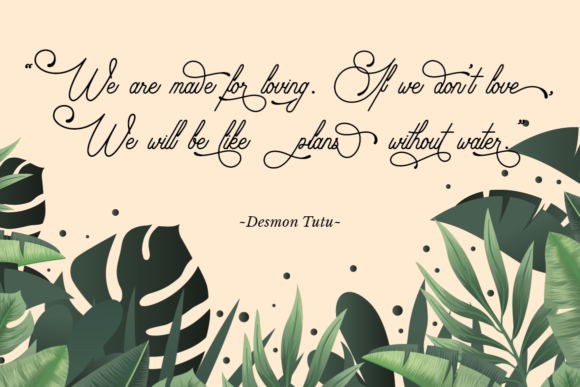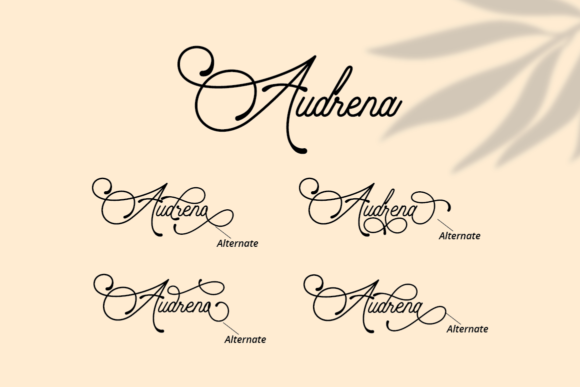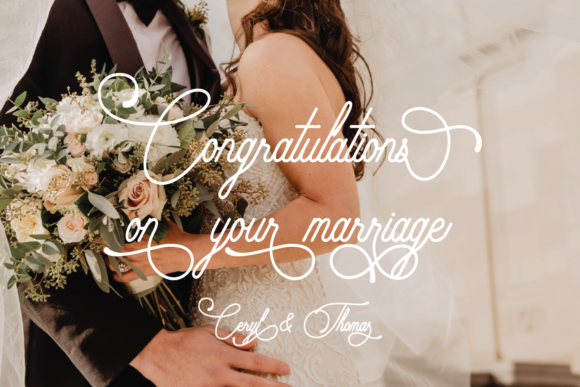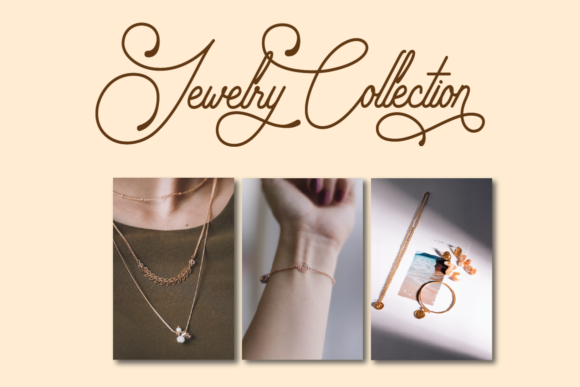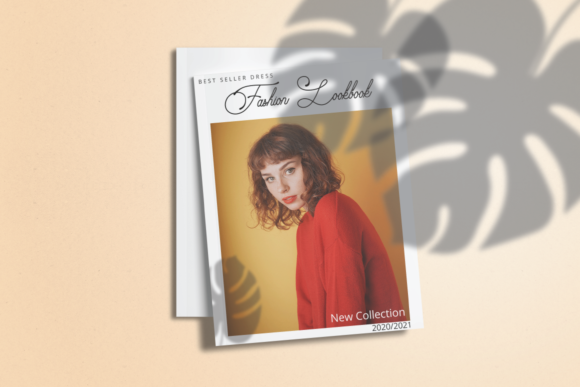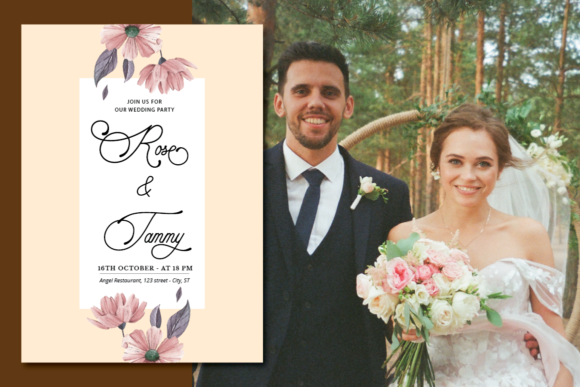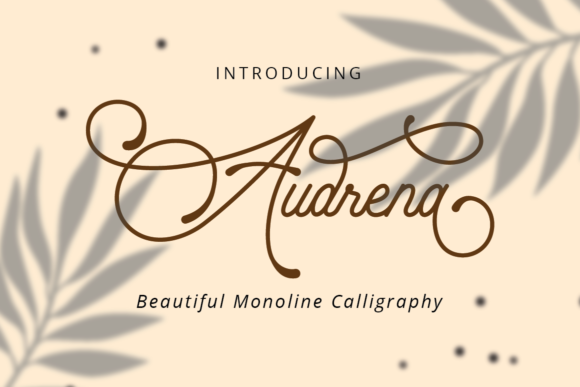
Audrena Font: Elevate Your Designs with Elegance and Flair
In the world of typography, a font can make or break a design. It’s the perfect blend of style, elegance, and personality that can elevate a project from ordinary to extraordinary. If you’re a designer, crafter, or creative looking for a font that embodies delicacy, elegance, and flow, look no further than the stunning Audrena Font.
Discover the Beauty of Audrena Font
Audrena is a delicate, elegant, and flowing handwritten font that has captured the hearts of designers and crafters alike. Its beautiful and well-balanced characters make it an ideal match for a wide pool of designs, from wedding invitations and branding materials to packaging and digital media. What sets Audrena apart is its unique combination of features that make it both versatile and visually stunning.
Key Features of Audrena Font
- Varying Baseline: Audrena’s varying baseline gives it a natural, handwritten feel that’s both organic and charming. This feature allows the font to convey a sense of movement and fluidity, making it perfect for designs that require a touch of elegance and sophistication.
- Smooth Lines: The font’s smooth lines and curves create a beautiful, flowing effect that’s both visually appealing and easy to read. Whether you’re using Audrena for body text or headlines, its smooth lines ensure that your message is conveyed with clarity and style.
- Gorgeous Glyphs: Audrena boasts an impressive range of gorgeous glyphs that add depth and character to any design. From subtle variations in letterforms to intricate details, the font’s glyphs are sure to impress even the most discerning designers.
- Stunning Alternates: One of the standout features of Audrena is its stunning alternates. These alternate characters offer a range of creative possibilities, allowing you to customize your designs and add a personal touch that sets them apart.
Why Choose Audrena Font?
So, why should you choose Audrena Font for your next project? Here are just a few compelling reasons:
- Versatility: Audrena’s versatility makes it suitable for a wide range of designs, from elegant wedding invitations to bold branding materials.
- Elegance: The font’s delicate, elegant feel adds a touch of sophistication to any design, making it perfect for projects that require a level of refinement.
- Creativity: With its gorgeous glyphs and stunning alternates, Audrena offers endless creative possibilities, allowing you to bring your most innovative ideas to life.
How to Use Audrena Font in Your Designs
Using Audrena Font in your designs is easy. Here are a few tips to get you started:
- Pair it with Other Fonts: Combine Audrena with other fonts to create a unique and visually appealing contrast. For example, pair it with a bold sans-serif font for a striking headline or with a script font for a romantic touch.
- Experiment with Colors: Audrena looks stunning in a range of colors, from soft pastels to rich jewel tones. Experiment with different colors to find the perfect match for your design.
- Play with Alternates: Take advantage of Audrena’s stunning alternates to add a personal touch to your designs. Use them to create a sense of movement or to add visual interest to your text.
In conclusion, Audrena Font is a beautiful, elegant, and flowing handwritten font that’s perfect for designers and crafters looking to elevate their designs. With its varying baseline, smooth lines, gorgeous glyphs, and stunning alternates, Audrena offers endless creative possibilities. Whether you’re working on a wedding invitation, branding material, or digital project, Audrena is sure to bring a touch of elegance and sophistication to your design. So why wait? Add Audrena to your font collection today and watch your designs come alive!